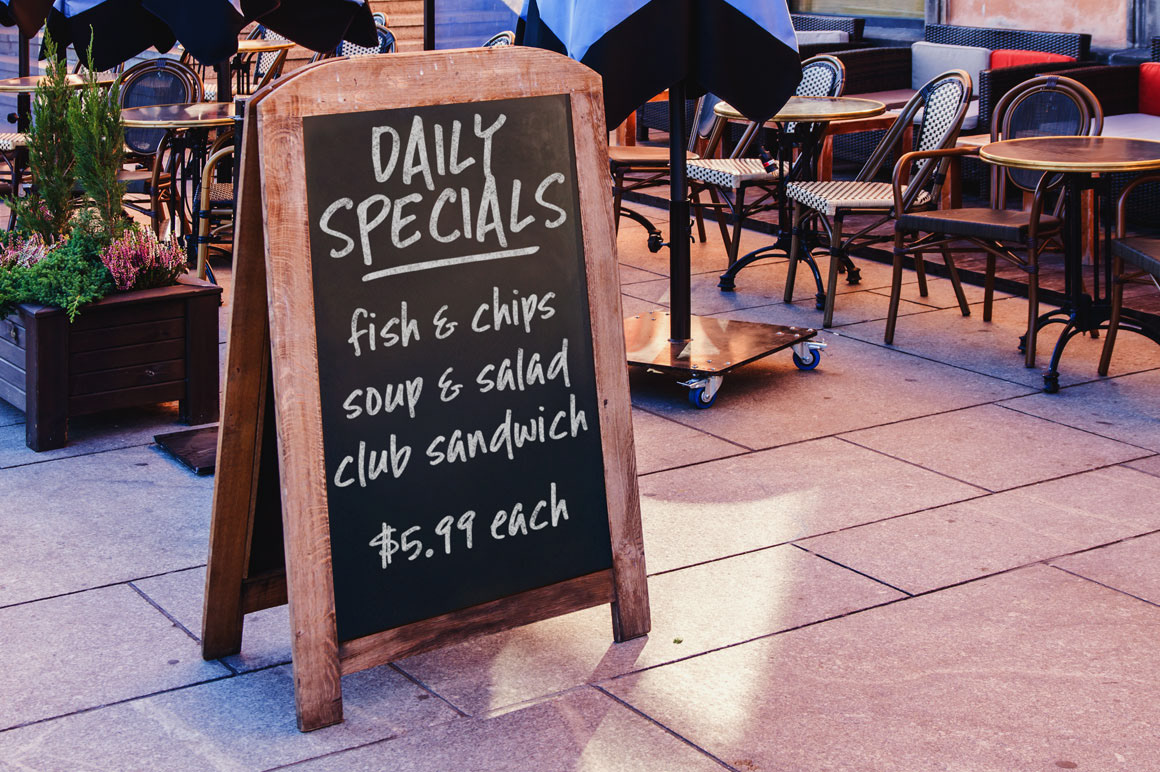
A while back, I wrote a blog post for the FontBundles site about how to create your own font using nothing but free software. I used GIMP for photo editing, Inkscape for tracing things into vector format, and FontForge for the font creation.
As I walked through the steps, I ended up creating this font. It doesn’t contain any accented characters, and the kerning isn’t 100% up to snuff, because it was made for demonstration purposes on a timeline. But if you’re looking for something hand-written looking in a kind of marker style, this is a freebie!